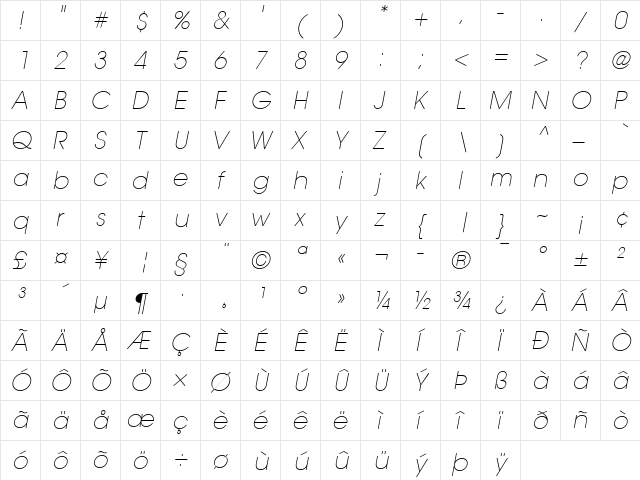
AvantGarde LT ExtraLight Italic
Design Context for AvantGarde LT ExtraLight Typeface
AvantGarde LT ExtraLight is a composed and adaptable typeface that performs quietly and consistently across a wide range of design contexts. The slanted form adds forward momentum and visual energy. Its slender proportions lend an understated elegance to any composition.
Pro Tip: Use AvantGarde LT ExtraLight for emphasis, pull quotes, and subheadings where its slanted energy can add rhythm to the layout.